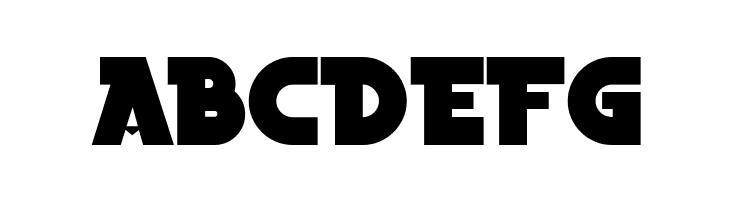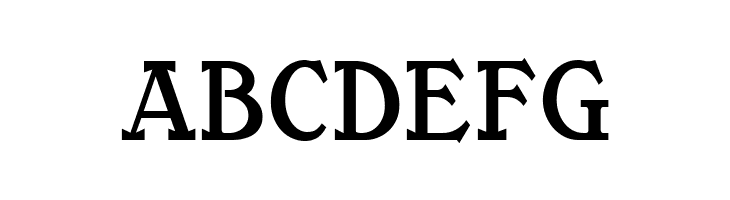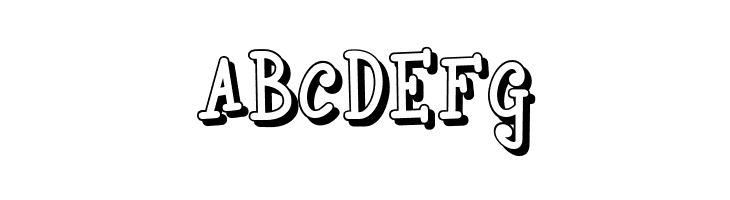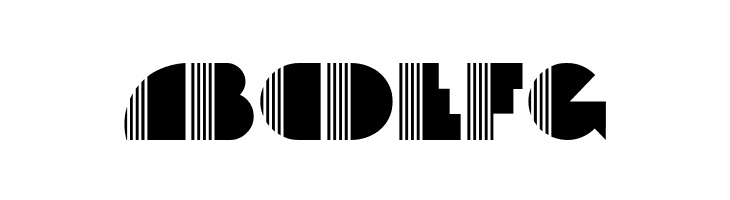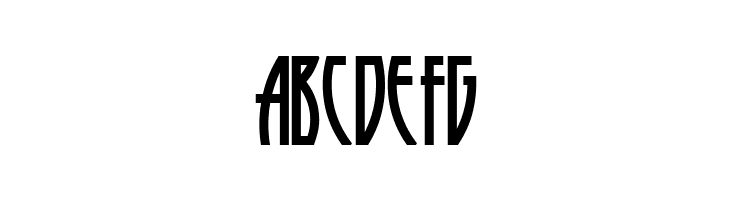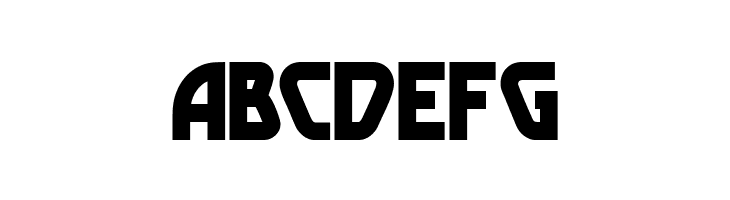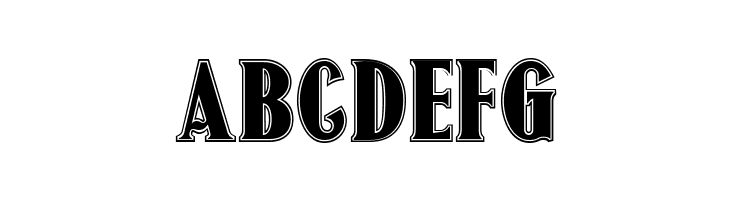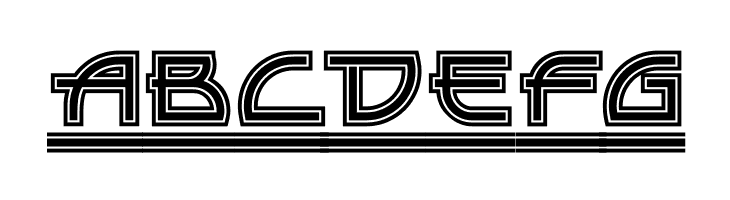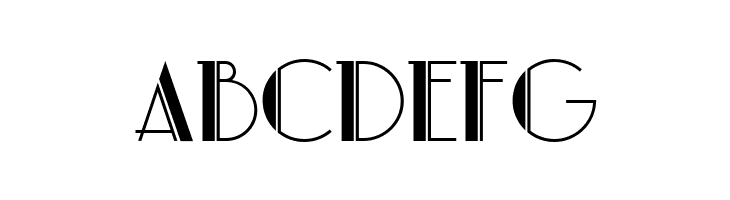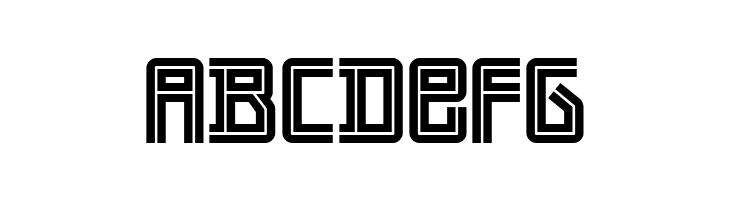
A bold, playful font with a vintage flair and unique serifs.
A bold, geometric font with strong lines and a modern, vintage appeal.
A classic serif font with bold, bracketed serifs and a strong, traditional presence.
A playful, bold font with a shadow effect and whimsical, cartoonish style.
A modern, artistic font with elongated, narrow letterforms and sharp angles.
A bold, geometric font with a mix of solid and striped elements for a striking visual impact.
A playful, tall, and narrow font with whimsical flair and bold design.
A bold, geometric font with angular elements and consistent stroke width.
A bold, geometric font with sharp angles and a modern style.
A bold, shadowed serif font with a classic yet modern style.
A bold, geometric font with a retro-futuristic style and layered outlines.
A bold, Art Deco-inspired font with geometric shapes and sharp angles.
A bold, geometric font with unique cutouts and high contrast.
A bold, geometric font with a futuristic and industrial design.
A bold, modern font with tall, narrow characters and high contrast.
A bold, geometric font with modern, decorative elements and dot patterns.
A bold, playful font with a 3D shadow effect, perfect for eye-catching designs.
A decorative serif font with whimsical curves and ornate details.
A bold, geometric font with Art Deco influences and clean lines.
A bold, decorative font with intricate swirls and flourishes.
A bold, Art Deco-inspired font with geometric shapes and sharp angles.
A bold, geometric sans-serif font with a unique horizontal line through each character.
A whimsical, vintage-style font with elegant curves and subtle serifs.
A bold, vintage-style serif font with decorative elements and strong presence.
A bold slab serif font with strong vertical emphasis and geometric elements.
A playful and whimsical font with curly serifs and rounded edges.
A bold, shadowed decorative font with strong visual impact.
An artistic and decorative font with geometric and playful elements.
A bold, decorative font with tall, narrow characters and high contrast.
A bold, angular font with a dynamic and geometric style.
A playful, dynamic font with geometric and organic shapes.
A bold, vintage-inspired font with high contrast and geometric shapes.
A bold, dynamic script font with slanted, italicized characters and strong visual impact.
A bold, decorative font with a unique inline design, perfect for impactful headlines.
A bold, decorative font with a three-dimensional shadow effect.